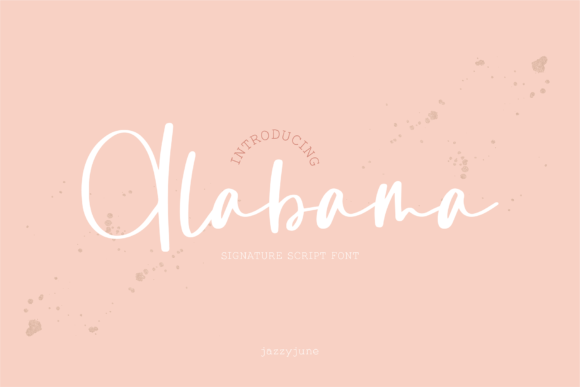
Introducing Alabama Font: The Epitome of Elegance and Charm in the Script Font Family
Prepare to be enthralled by Alabama Font, the epitome of elegance and charm in the realm of script fonts. Each stroke and curve of this font exudes an aura of sophistication and grace, leaving an unforgettable impact on your creative projects.
Step into the world of Alabama Font, where your words take on a mesmerizing dance, effortlessly conveying messages with a touch of artistic flair. Whether you're crafting logos that command attention, designing wedding invitations that whisper romance, or creating headings that captivate, Alabama Font is your ultimate companion.
With its versatile nature, Alabama Font seamlessly adapts to a myriad of purposes. Transform your t-shirts into walking works of art, add a touch of personalization to your letterhead, or craft signage that draws eyes from afar. Create labels that exude elegance, breathe life into news articles, or design posters that leave a lasting impression.
Immerse yourself in the infinite possibilities of Alabama Font. From badges that speak volumes to designs that ignite imaginations, there's no limit to what you can achieve with this remarkable font.
Elevate Your Designs with Alabama Font:
- Logos that Radiate Sophistication: Create logos that exude professionalism and leave a lasting impression on your audience.
- Wedding Invitations Dripping with Romance: Craft wedding invitations that capture the essence of love and elegance, setting the tone for a truly special occasion.
- Headings that Demand Attention: Design headings that command attention and grab readers' eyeballs, ensuring your message is heard loud and clear.
- T-Shirts that Speak Style: Transform ordinary t-shirts into fashion statements, letting your personality shine through with every wear.
- Letterhead that Exudes Professionalism: Craft letterhead that radiates authority and trust, making a statement even before words are spoken.
- Signage that Draws Eyes: Create signage that attracts attention from afar, drawing customers into your business or event with irresistible allure.
- Labels that Infuse Elegance: Design labels that add a touch of sophistication to your products, elevating their perceived value and making them stand out on shelves.
- News Articles that Engage Readers: Create news articles that captivate readers with their visual appeal, keeping them engaged until the very last word.
- Posters that Ignite Imaginations: Design posters that spark creativity and inspire action, captivating audiences with their striking visuals.
- Badges that Convey Identity: Craft badges that convey a sense of belonging and pride, unifying individuals under a shared purpose or passion.